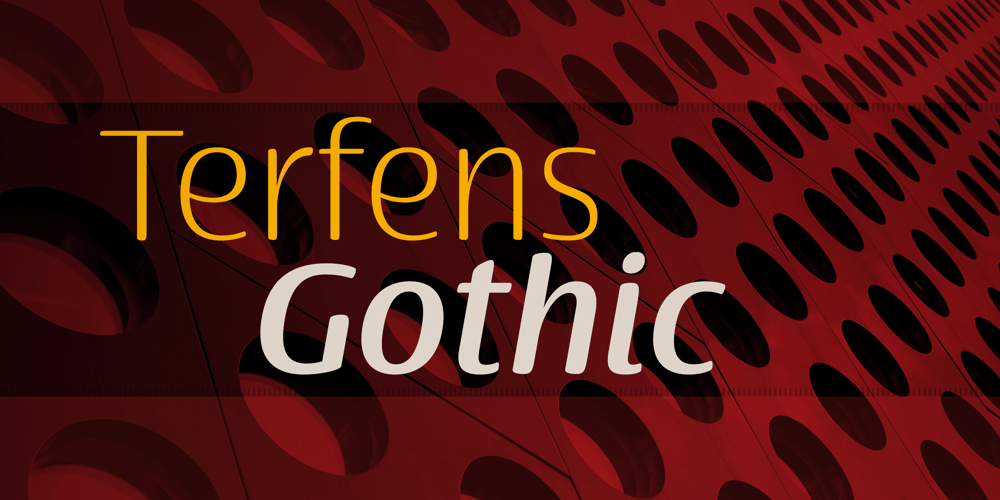
Terfens Gothic Font Family was designed by Jeremy Dooley and published by insigne. Terfens Gothic contains 48 styles and family package options. Terfens Gothic is the perfect choice for your next project! With its medium contrast and approachable design, this calligraphic sans serif has a classic feel that will never go out of style. Terfens Gothic is the perfect typeface for anyone looking to add a touch of uniqueness to their designs. With its generous x-height and rounded terminals, it’s perfect for creating one-of-a-kind designs that are sure to impress. Its large x-height gives it a welcoming, but not too casual vibe.With forty-eight different typefaces, it has the versatility and aesthetic options you need to make your project stand out. Choose from regular, condensed, and extended styles, each with nine different weights and italics. Terfens Gothic has the look you need to make a powerful impression.Terfens is the ideal typeface for any project that has to stand out, thanks to its towering verticality. Terfens may be utilized for a variety of purposes because of its adaptable design. Terfens is a sans unlike any other- it starts with a beautiful calligraphic chancery script and then adds movement and personality. This sans is guaranteed to make your next project more exciting!The Terfens Type System’s third typeface, Terfens Gothic, is an amazing addition to any type collection. The Terfens Type System’s adaptability is unrivaled, with its vast choice of styles, widths, and weights. This font family has everything you need to create unique, customized designs that will suit your individual needs. Whether you need a narrow or wide font, or a hairline or bold weight, the Terfens Type System has you covered! And, with its Opentype features, the Terfens Type System is perfect for anyone who wants to add a personal touch to their projects.